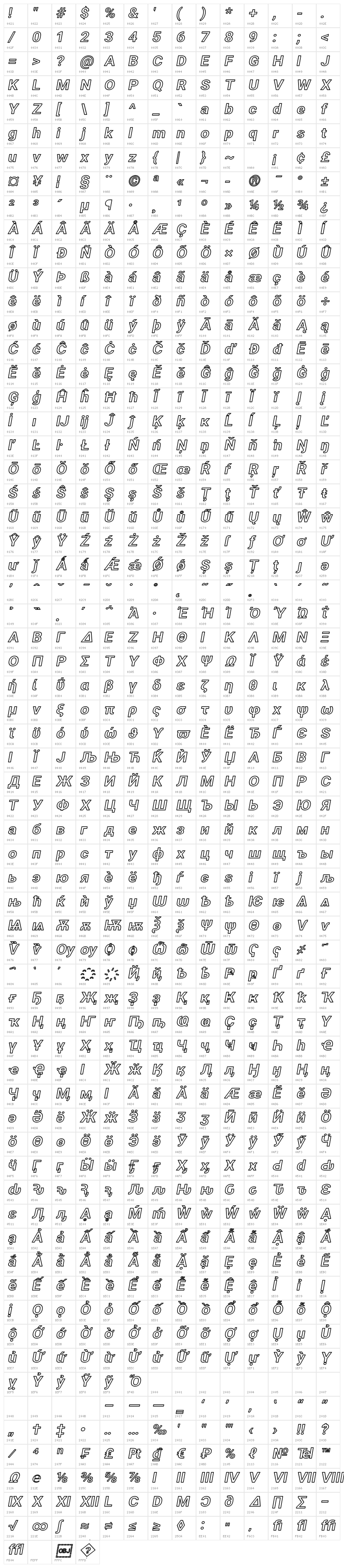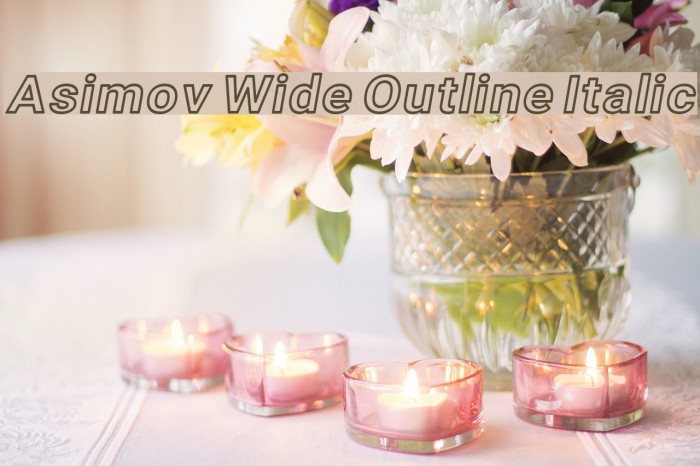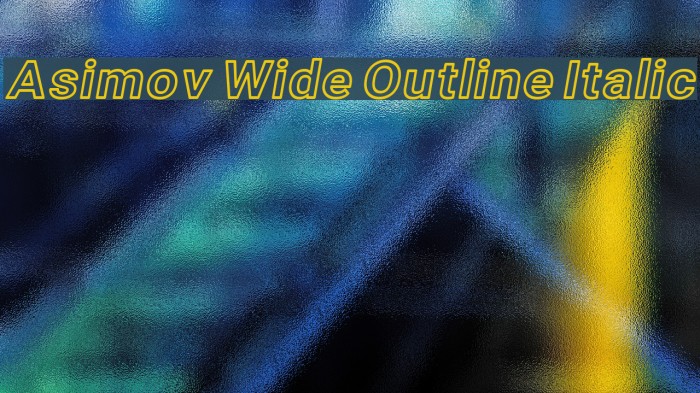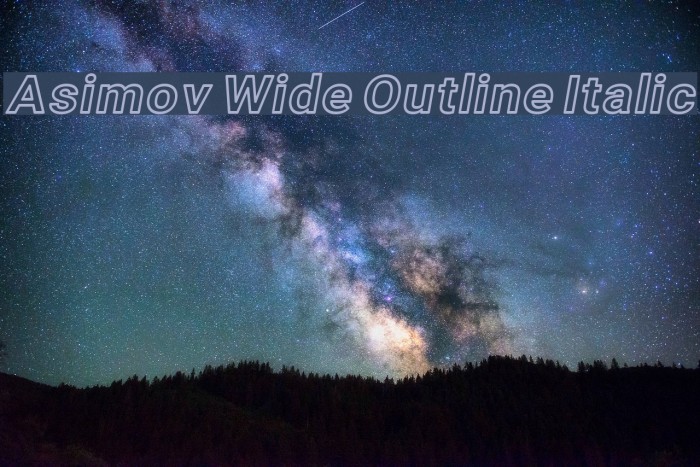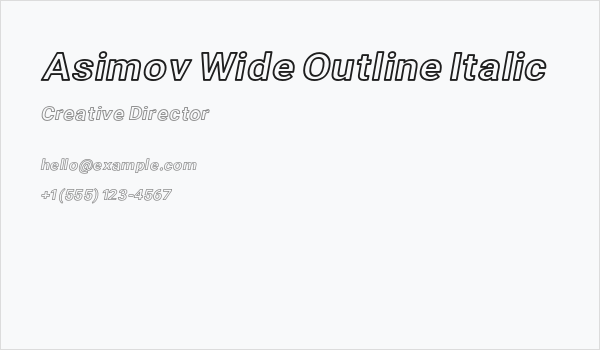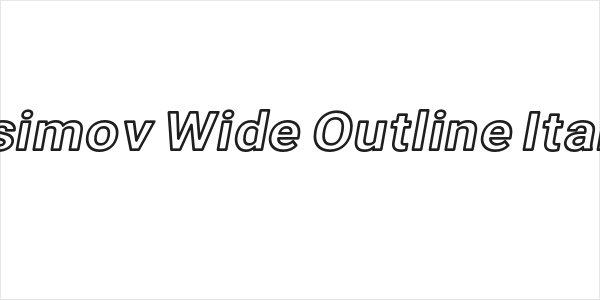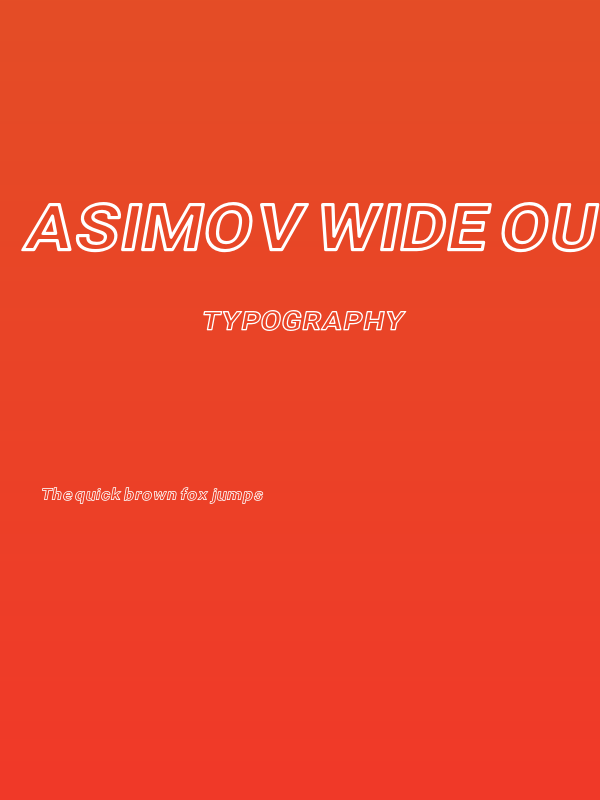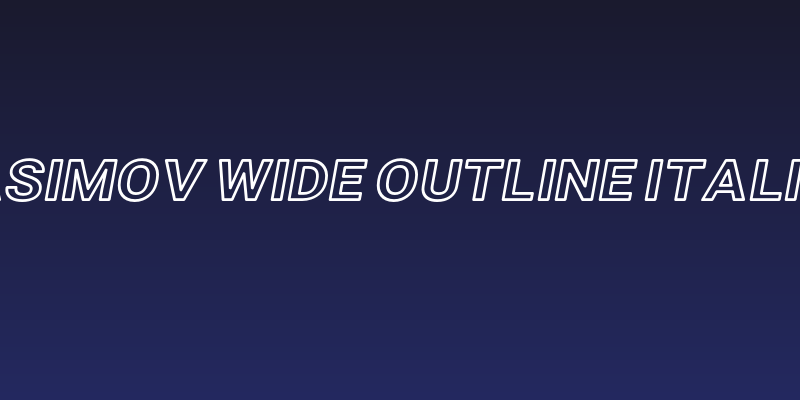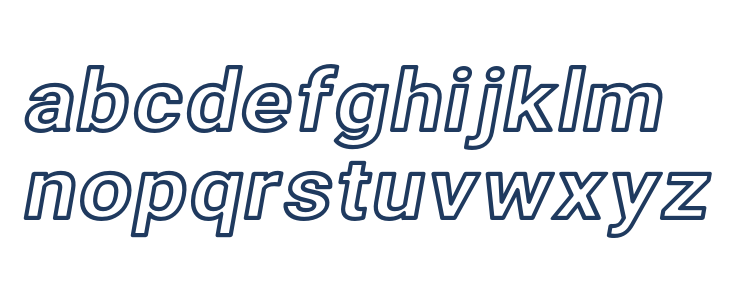
Asimov Wide Outline Italic Font
Asimov Wide Outline Italic Description
This font features a bold, wide outline style with a distinct italic slant, giving it a dynamic and modern appearance. The uppercase and lowercase letters maintain a consistent width, creating a uniform look across the alphabet. The numerals and special characters are designed to match the overall style, ensuring cohesion in any text. The outline effect adds a layer of depth, making it suitable for eye-catching designs. Its clean lines and geometric shapes contribute to a futuristic aesthetic, making it ideal for projects that require a contemporary and innovative feel.
| Proposed Projects | Ideal for branding, headlines, posters, and digital media that require a futuristic and bold look. |